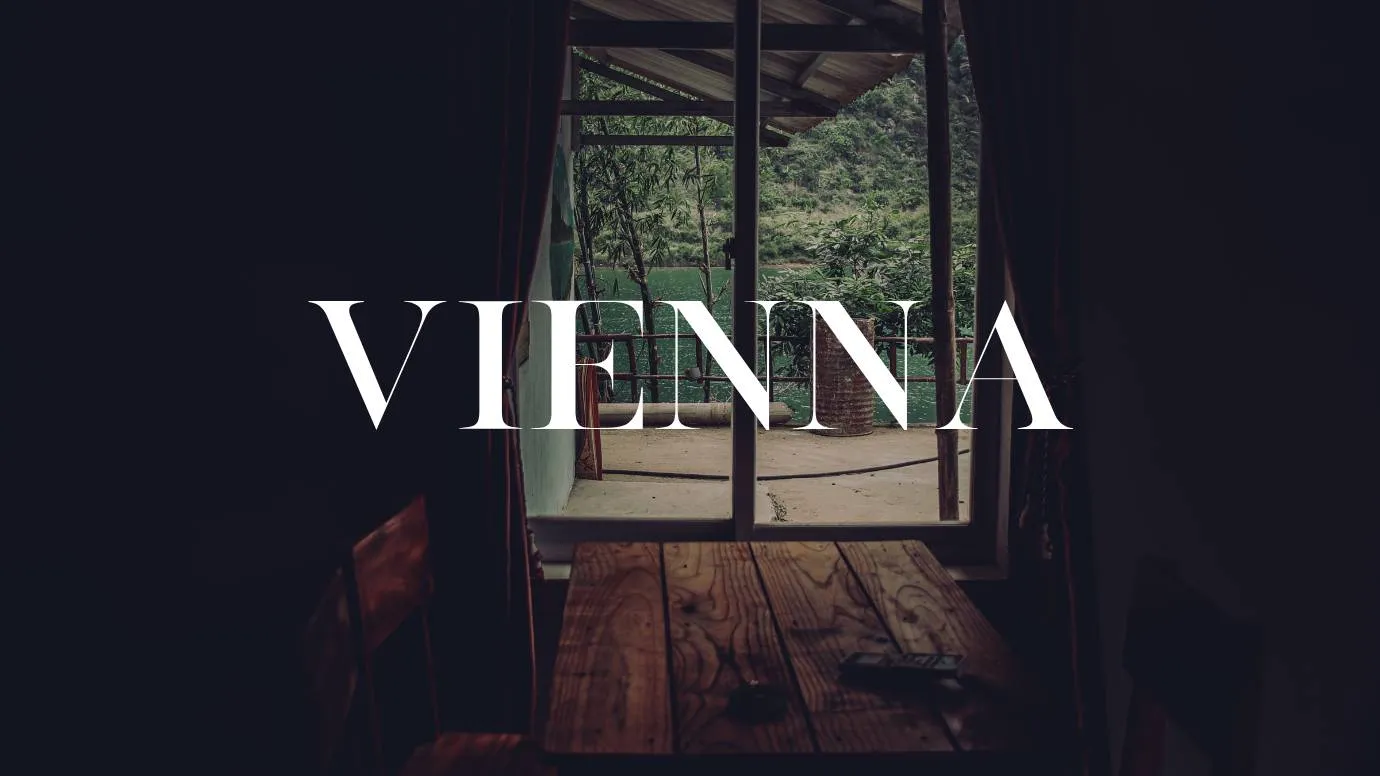
Vienna Font Family is basically a serif-type font and the main and original designer of this classic font is Big Cat Creative. The minimal look characters of this texture are so attractive and stylish for luxury designs.
Vienna Font